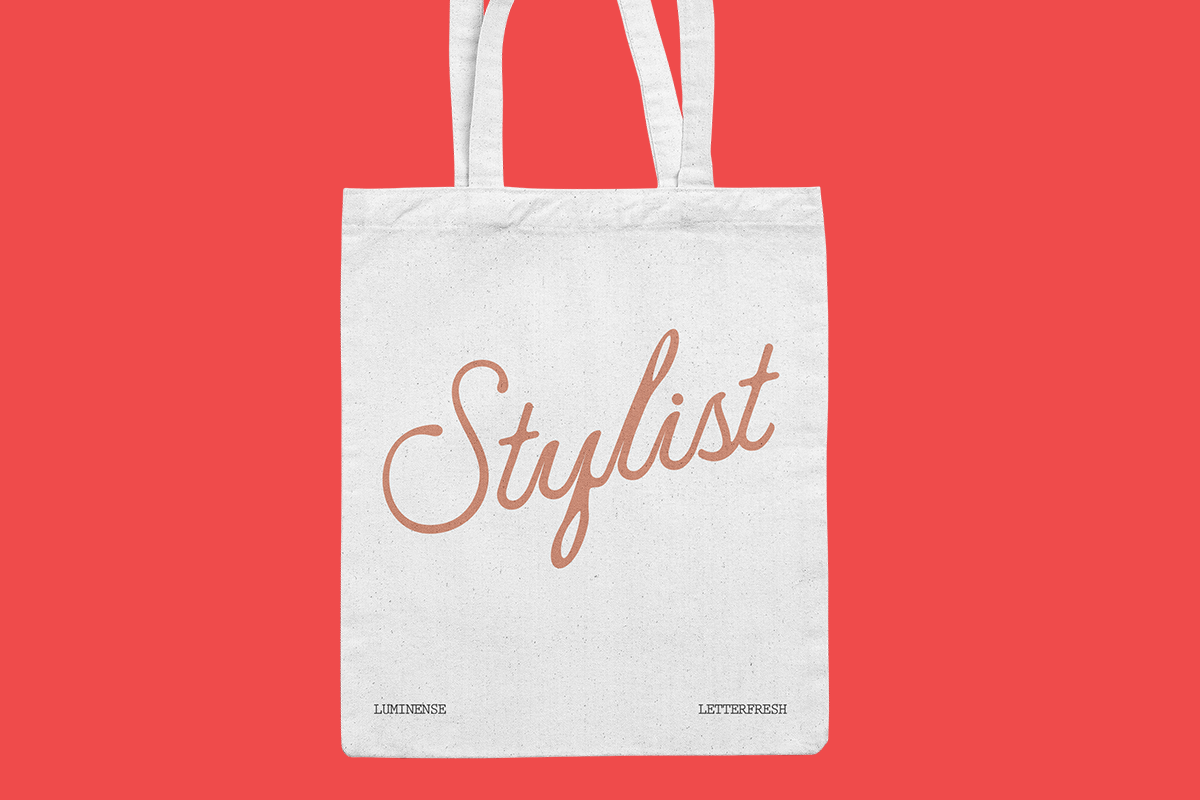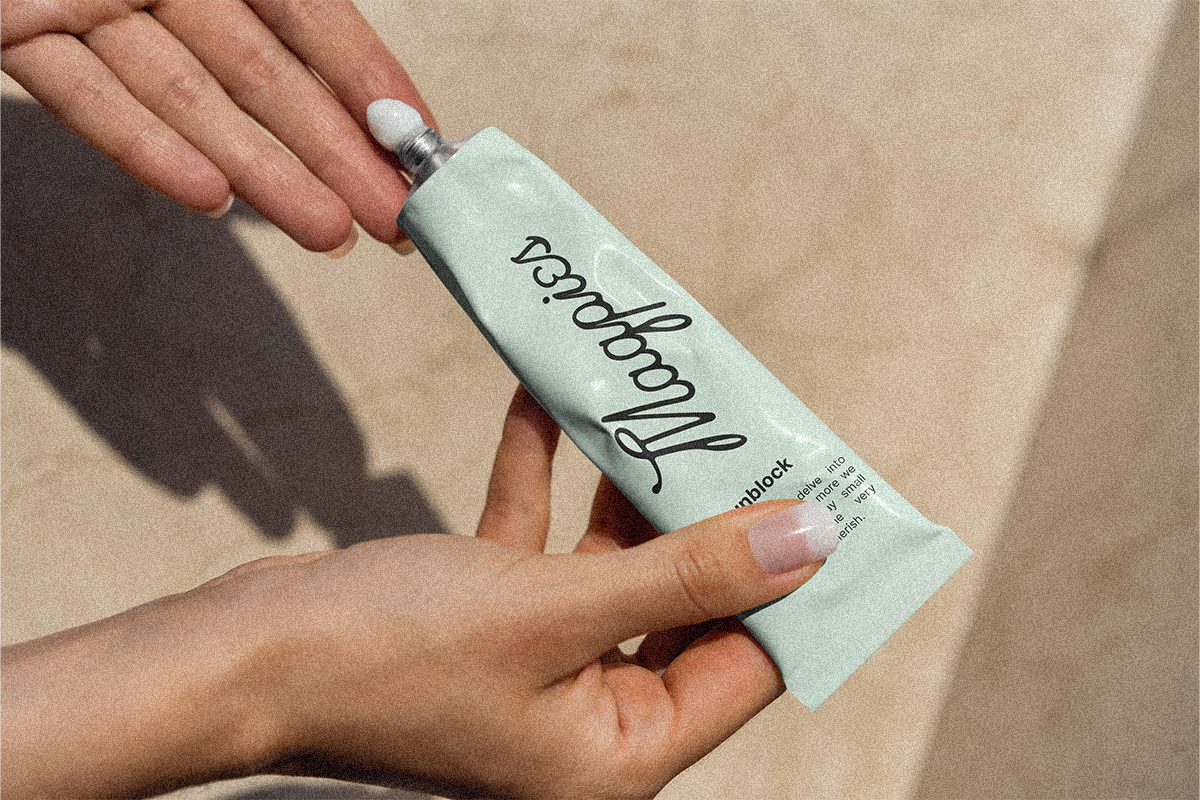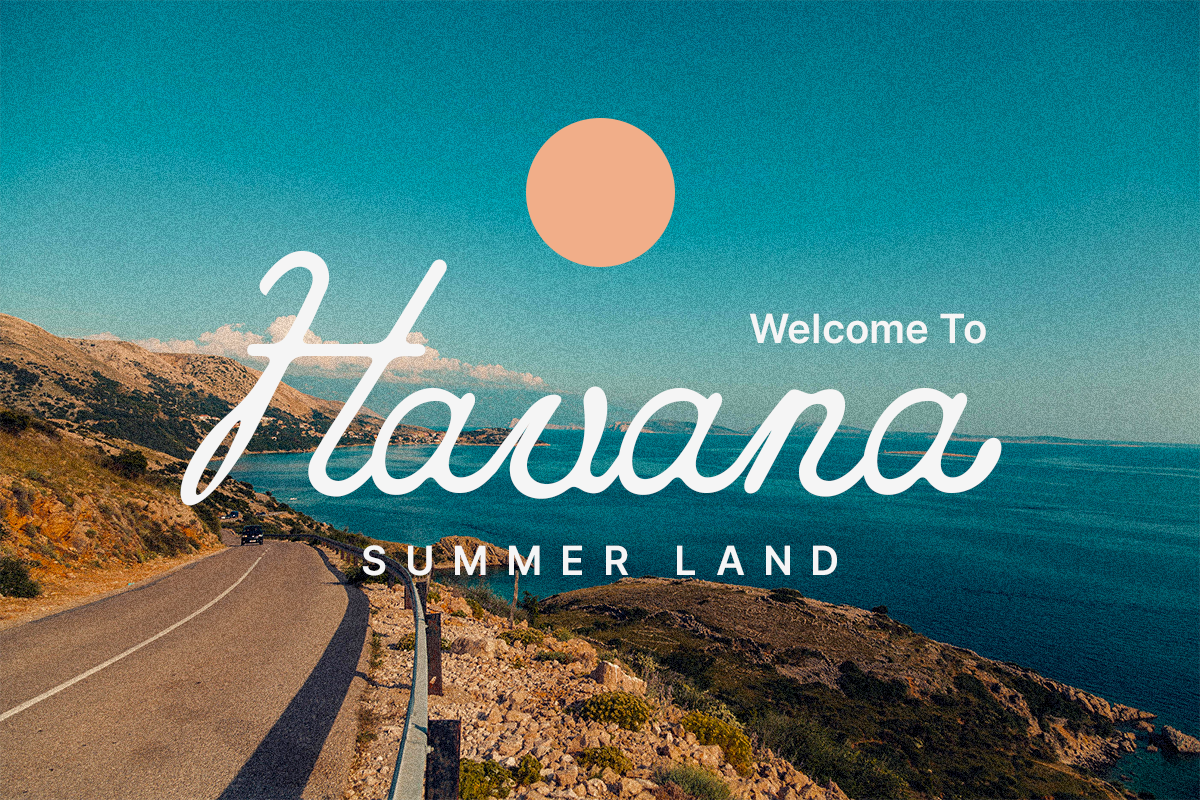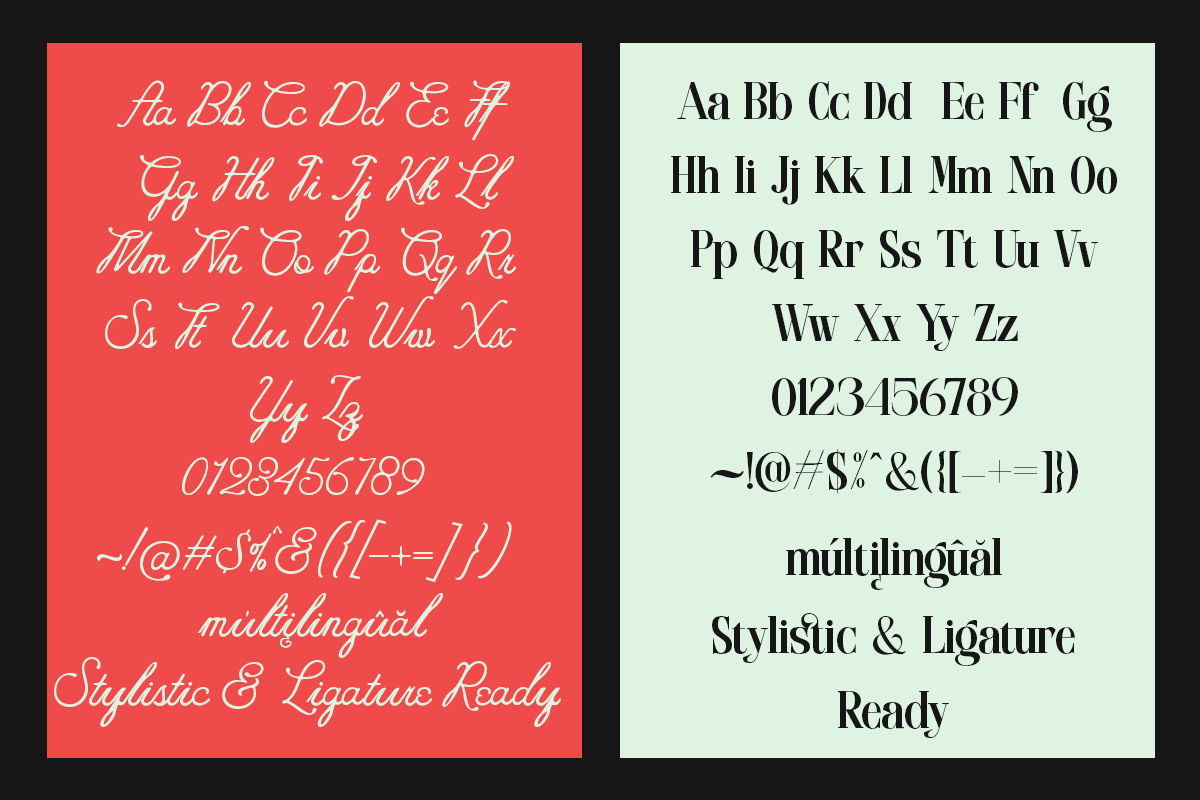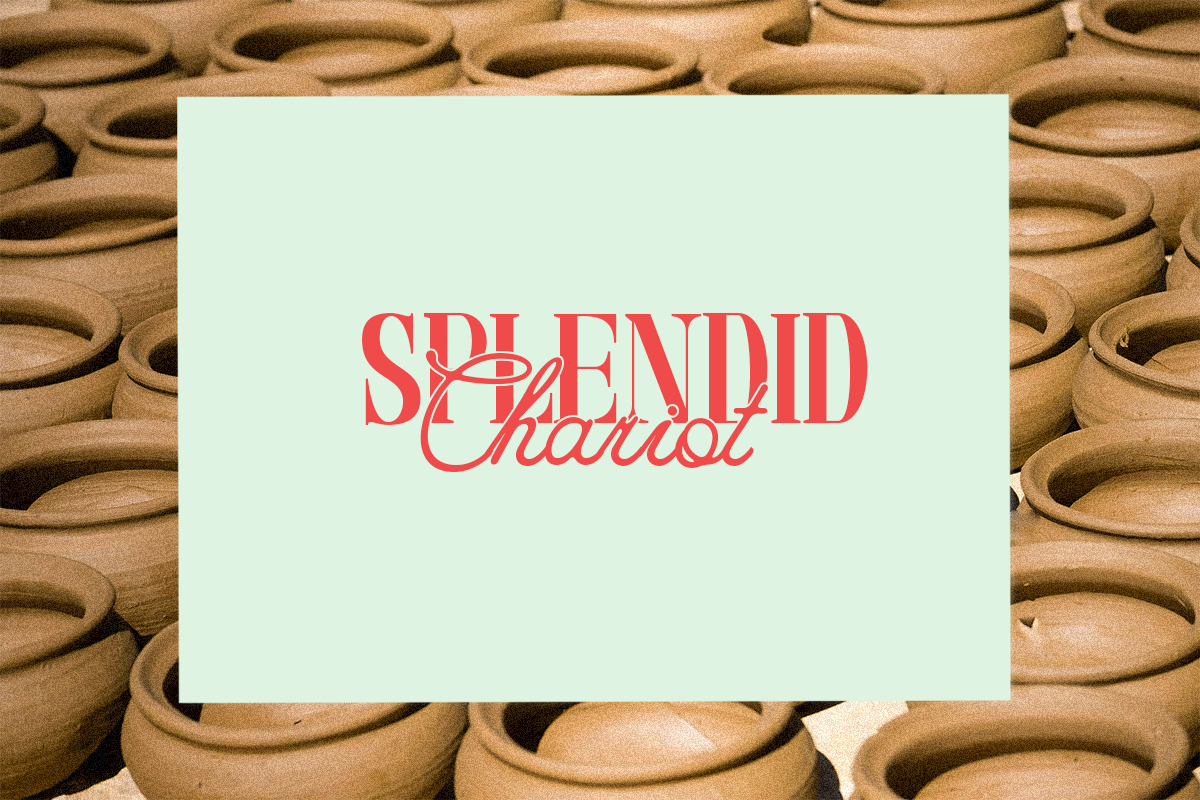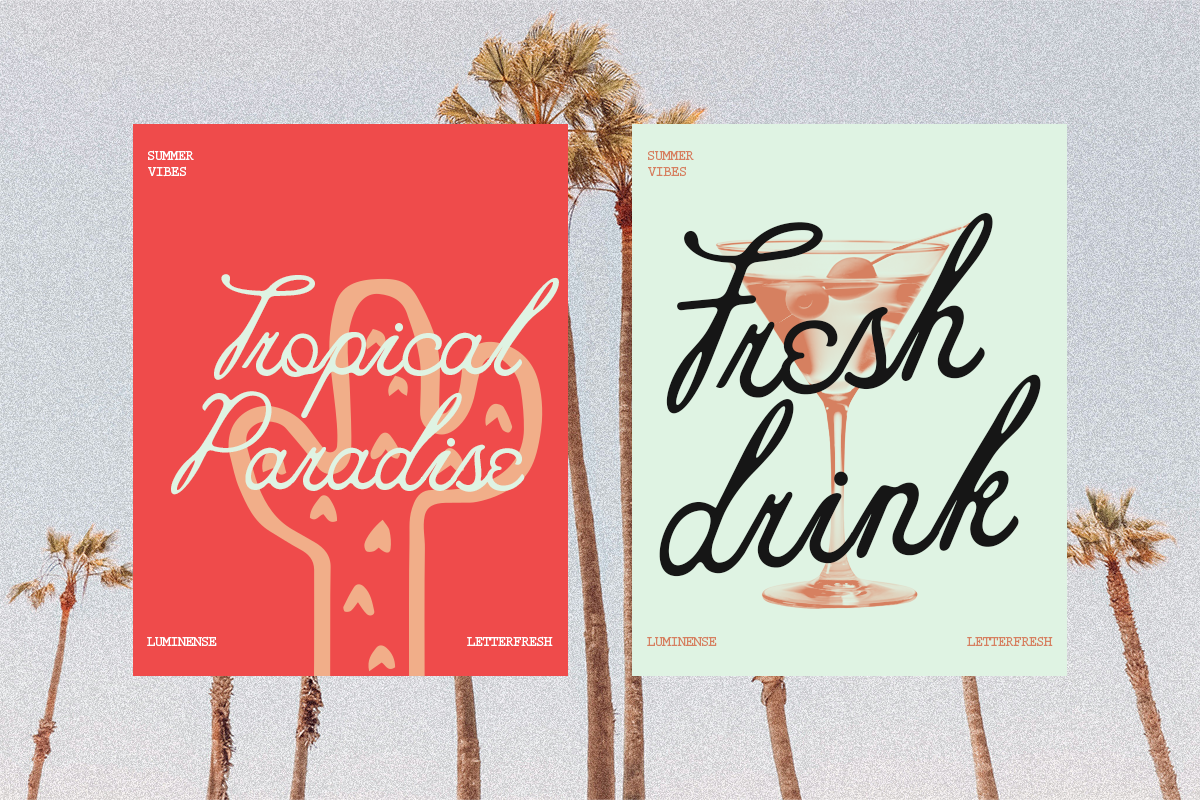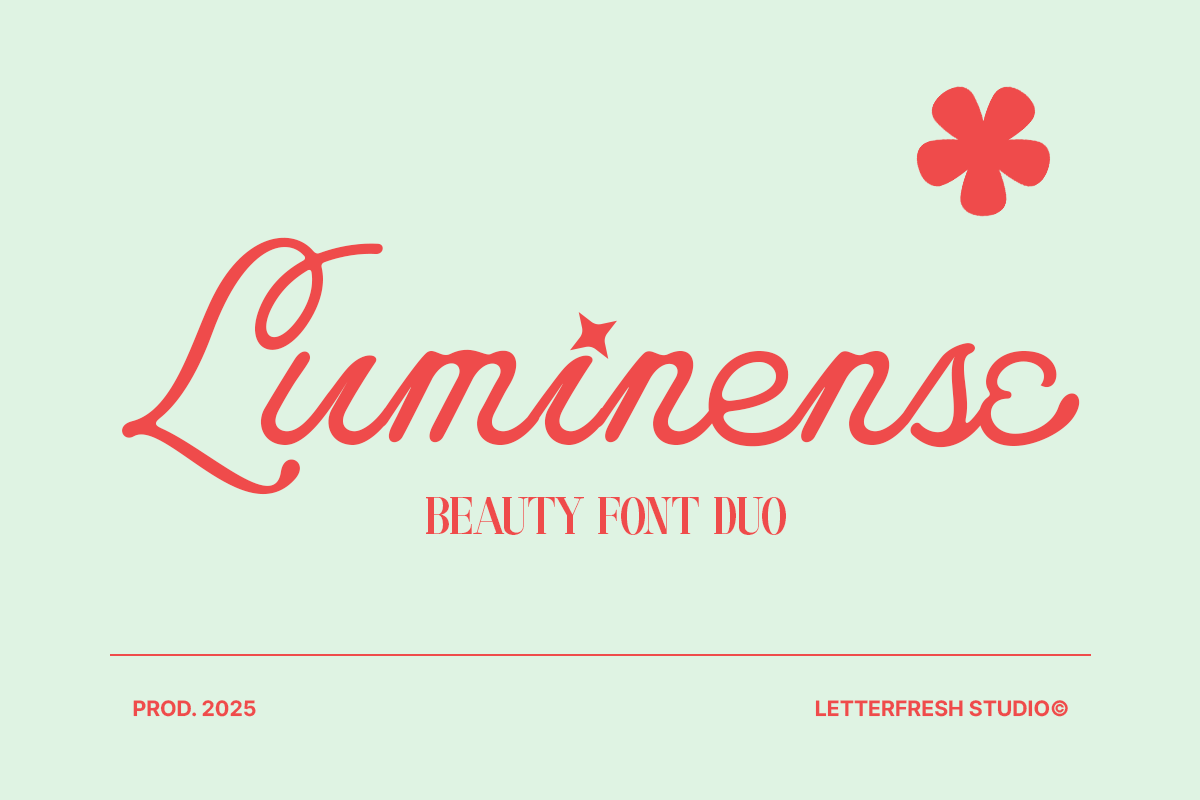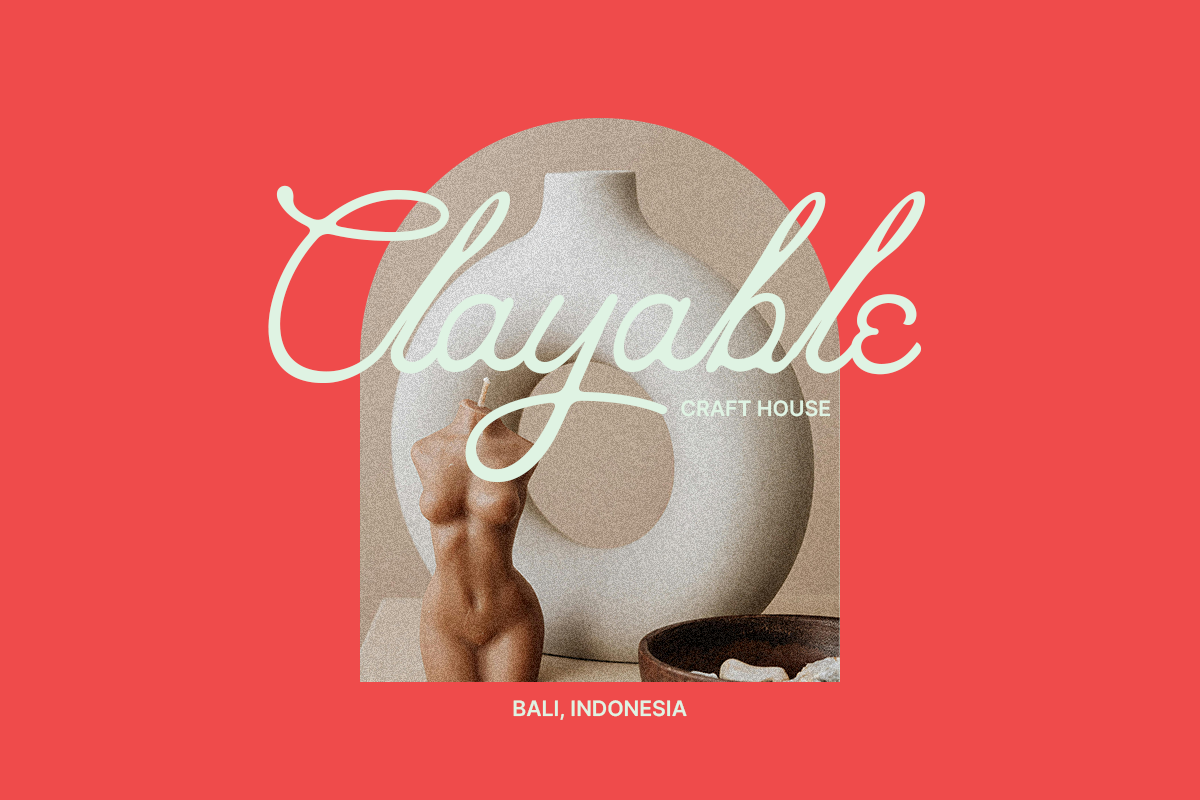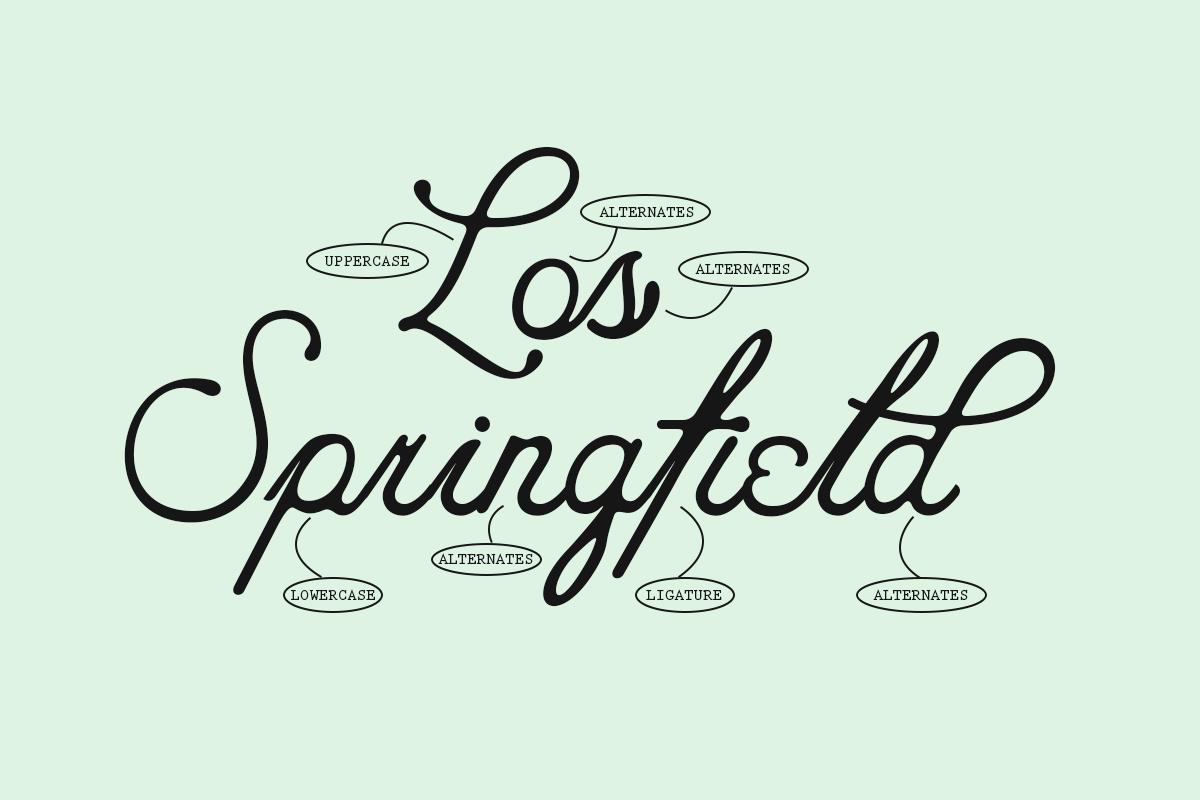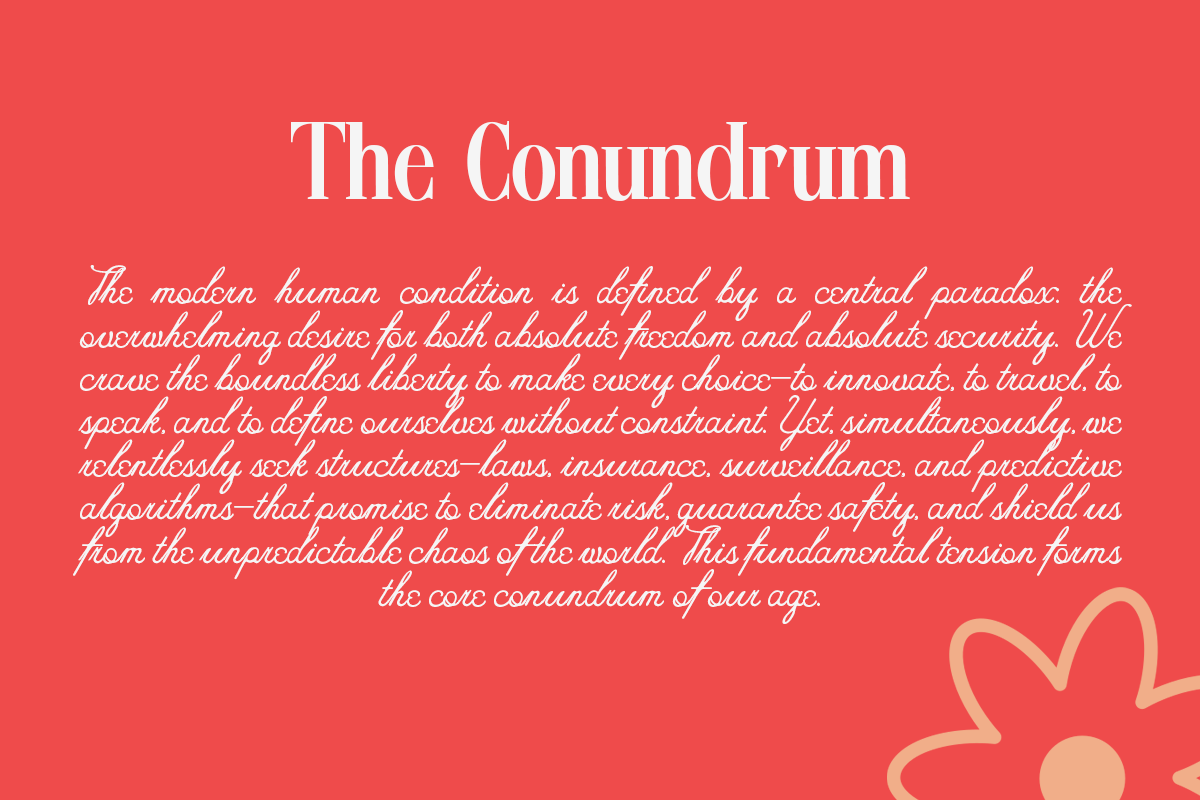
Luminense Font Duo
Luminense Font Duo is a captivating blend of script and serif fonts, exuding a timeless atmosphere and nostalgic charm that enhances every design. This unique blend brings a touch of sophistication to any project, making it an ideal choice for branding, editorial layouts, and social media visuals. With its versatile aesthetic, Luminense Font Duo enriches your design toolkit, offering endless creative possibilities for refined and stunning results.
The Perfect Font Combination:
Complete Punctuation & Symbols: Everything you need is here – punctuation, numbers, and special characters. Extensive Language Support: English, Italian, French, Spanish, German, Portuguese, Dutch, Danish, Norwegian, and Swedish. PUA-Encoded Characters – Fully accessible without additional design software. This font supports ligatures, alternates, and is multilingual.